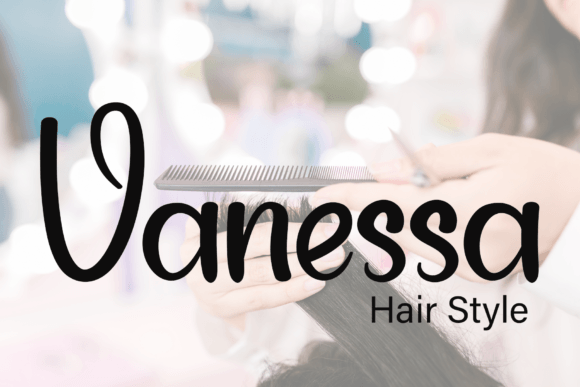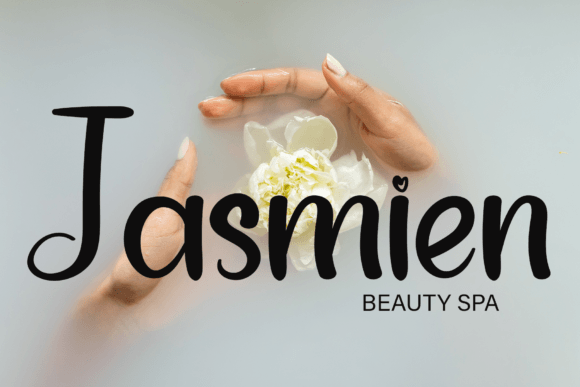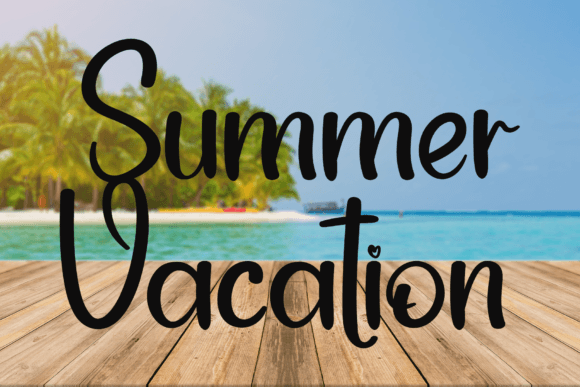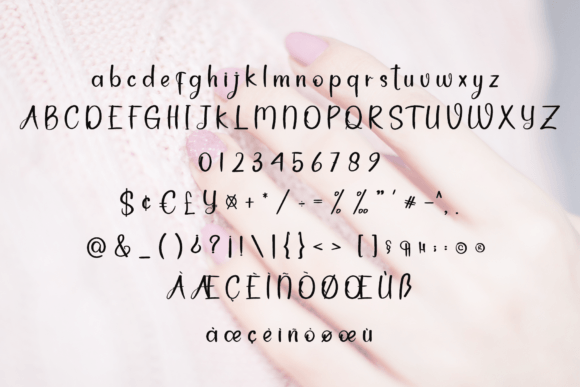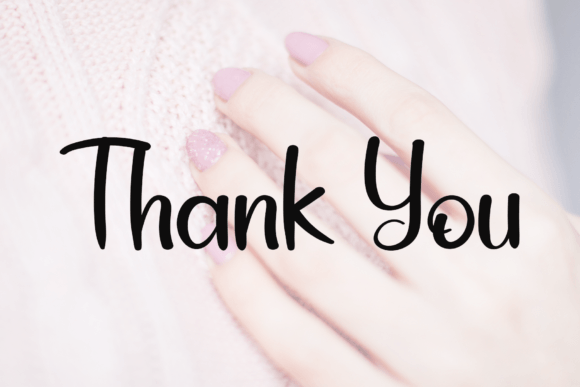
Introducing Handbody Font: The Ultimate Modern Handwritten Font
Are you tired of using the same old fonts for your crafts, digital designs, presentations, and greeting cards? Look no further! Handbody Font is here to revolutionize your creative projects with its cool and modern handwritten style. This versatile font is perfect for designers, crafters, and anyone looking to add a personal touch to their work.
What Makes Handbody Font Stand Out?
Handbody Font boasts a unique and modern handwritten aesthetic that sets it apart from other fonts. Its clean lines, flowing curves, and natural feel make it perfect for a wide range of applications, from digital designs to handmade crafts. Whether you’re creating a logo, brochure, or social media graphics, Handbody Font is sure to make your work stand out.
Perfect for Various Creative Projects
One of the best things about Handbody Font is its versatility. It’s suitable for various creative projects, including:
- Crafts: Use Handbody Font to add a personal touch to your handmade crafts, such as scrapbooking, card making, and DIY jewelry.
- Digital Design: Add a modern and trendy feel to your digital designs, including logos, brochures, and social media graphics.
- Presentations: Make your presentations more engaging and visually appealing with Handbody Font.
- Greeting Cards: Create beautiful and heartfelt greeting cards for special occasions using Handbody Font.
Why Choose Handbody Font?
There are many reasons why Handbody Font should be your go-to font for creative projects. Here are a few:
- Unique Style: Handbody Font has a distinctive and modern handwritten style that will set your work apart from others.
- Easy to Read: The font is clear and easy to read, making it perfect for body text and headings.
- Highly Versatile: Handbody Font can be used for a wide range of creative projects, from digital designs to handmade crafts.
- Time-Saving: With Handbody Font, you can create professional-looking work in no time, saving you time and effort.
Tips for Using Handbody Font
Here are some tips for getting the most out of Handbody Font:
- Experiment with Sizes: Try using Handbody Font in different sizes to create visual interest and hierarchy.
- Pair with Other Fonts: Combine Handbody Font with other fonts to create a unique and visually appealing typography.
- Use for Headings and Body Text: Use Handbody Font for both headings and body text to create a cohesive look.
In conclusion, Handbody Font is a cool and modern handwritten font that’s perfect for designers, crafters, and anyone looking to add a personal touch to their creative projects. Its unique style, versatility, and ease of use make it an excellent addition to any creative toolkit. Whether you’re working on a digital design, handmade craft, or presentation, Handbody Font is sure to become your go-to font.